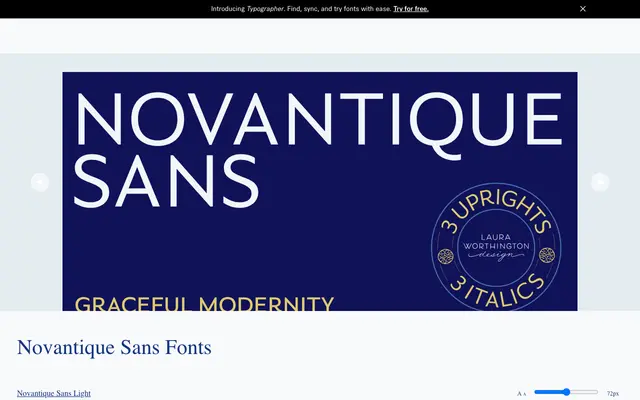
Novantique Sans
A sans-serif designed as part of the four-family Novantique collection, covering three weights with italics for editorial use from covers to body text.
One of four related families in the Novantique collection alongside a script, a serif display and a text serif, this sans runs from Light to Bold with matching italics across six styles. OpenType features include small capitals, stylistic sets, fractions and common ligatures, giving it solid typographic utility for editorial hierarchies. Broad Latin Extended coverage handles the majority of Western European languages.
The sans-serif member of the Novantique editorial collection, designed for use alongside serif and script companions in layered typographic systems; its humanist sensibility suits headline and text roles in magazine contexts.